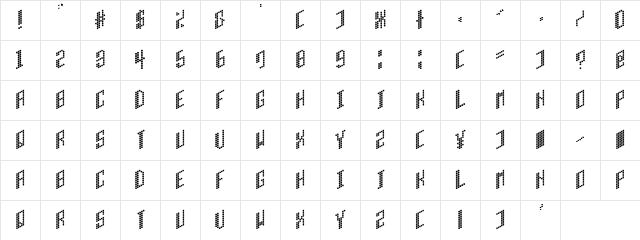
Complete H.I.B. Cell Plain glyph index. Displaying only characters natively supported by H.I.B. Cell Plain font.
H.I.B. Cell is a composed and adaptable typeface that performs quietly and consistently across a wide range of design contexts.